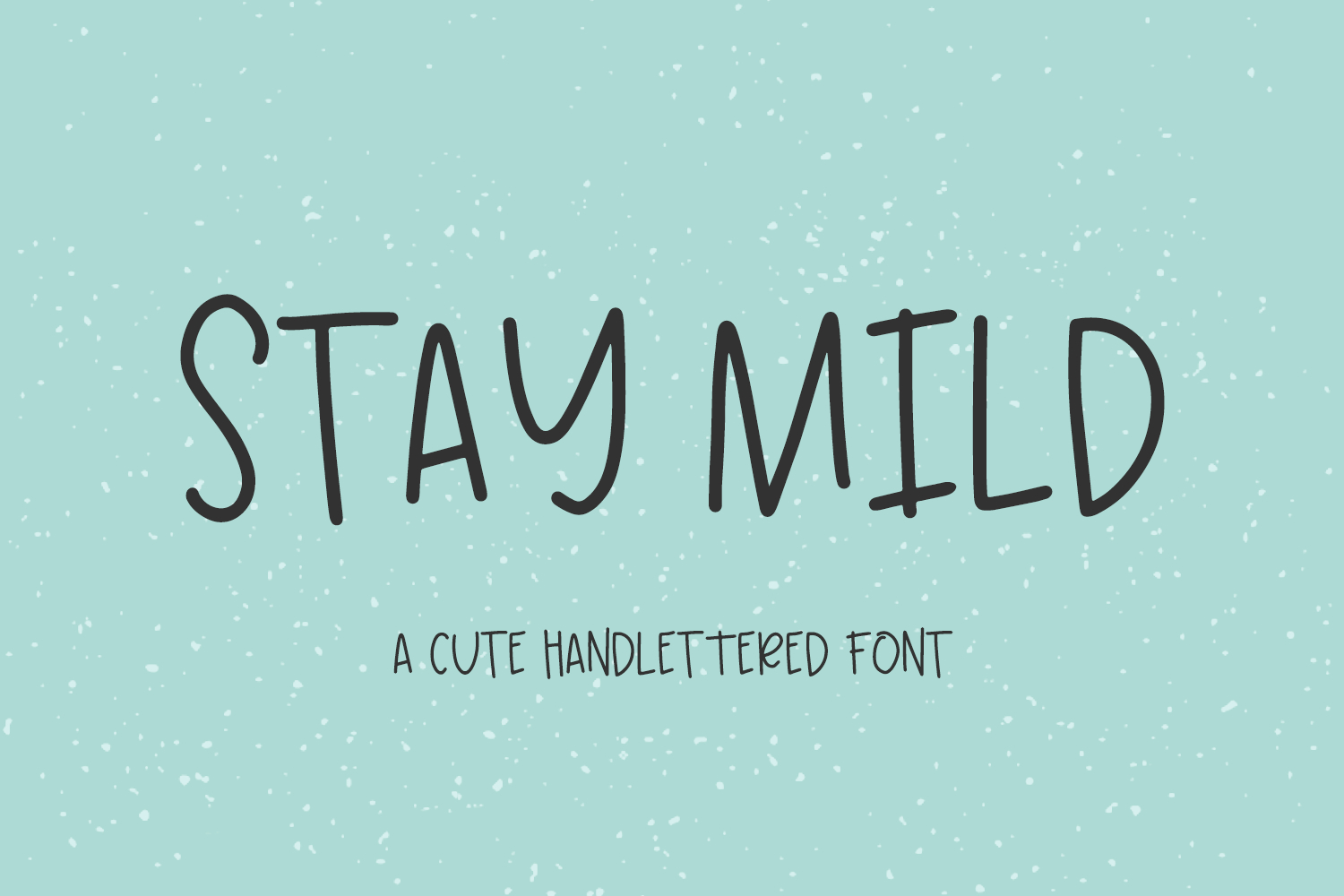
Introducing Stay Mild Sans, a cute mixed-case sans font.
Stay Mild is best for:
- adorable quote graphics for social media
- playful logos + branding
- website design + website accents - think travel blogs, fashion blogs, & more
- SVG designs
- fun sticker designs